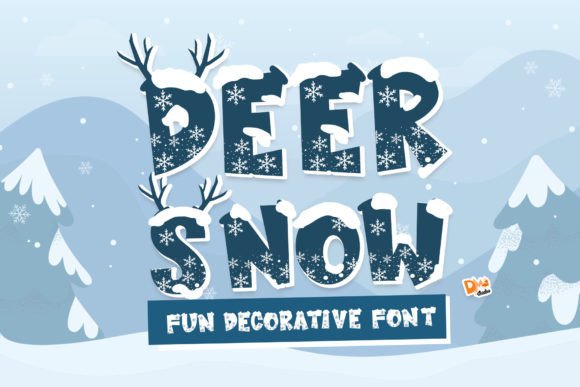
Deer Snow Font: A Cute and Lovely Decorative Font for Wintery and Christmas-Related Projects
Are you looking for a font that captures the essence of winter and Christmas? Look no further than the Deer Snow Font, a cute and lovely decorative font that’s perfect for all your wintery and Christmas-related creative projects. In this article, we’ll take a closer look at the Deer Snow Font, its features, and how you can use it to add a touch of magic to your designs.
What is Deer Snow Font?
Deer Snow Font is a decorative font designed to evoke the feeling of snow and winter. It’s a fun and playful font that’s perfect for creating festive and eye-catching designs. The font features a unique and intricate design, with each letter and symbol carefully crafted to resemble snowflakes and winter elements.
Features of Deer Snow Font
The Deer Snow Font has several features that make it perfect for wintery and Christmas-related projects. Some of its key features include:
- Cute and Lovely Design: The font has a cute and lovely design that’s perfect for creating festive and eye-catching designs.
- Wintery and Christmas-Related Themes: The font is designed specifically for wintery and Christmas-related projects, making it perfect for creating holiday cards, decorations, and more.
- Unique and Intricate Design: Each letter and symbol in the font is carefully crafted to resemble snowflakes and winter elements, giving it a unique and intricate design.
- Fun and Playful: The font has a fun and playful feel to it, making it perfect for creating designs that are meant to be festive and fun.
How to Use Deer Snow Font
The Deer Snow Font is easy to use and can be incorporated into a variety of design projects. Here are some ways you can use the font:
- Holiday Cards and Invitations: Use the Deer Snow Font to create festive holiday cards and invitations that are sure to impress.
- Christmas Decorations: Use the font to create Christmas decorations, such as garlands, signs, and more.
- Wintery Social Media Graphics: Use the font to create wintery social media graphics that are sure to stand out.
- Festive Website Headers: Use the font to create festive website headers that will get your visitors in the holiday spirit.
Benefits of Using Deer Snow Font
There are several benefits to using the Deer Snow Font in your design projects. Some of the benefits include:
- Unique and Festive Designs: The font allows you to create unique and festive designs that are sure to stand out.
- Easy to Use: The font is easy to use and can be incorporated into a variety of design projects.
- High-Quality Design: The font has a high-quality design that’s sure to impress.
- Perfect for Wintery and Christmas-Related Projects: The font is designed specifically for wintery and Christmas-related projects, making it perfect for creating holiday designs.
Tips for Using Deer Snow Font
Here are some tips for using the Deer Snow Font in your design projects:
- Use it Sparingly: Use the font sparingly to avoid overwhelming your design.
- Pair it with Other Fonts: Pair the Deer Snow Font with other fonts to create a unique and interesting design.
- Experiment with Colors: Experiment with different colors to find the perfect combination for your design.
- Have Fun: Most importantly, have fun and be creative with the font!
The Deer Snow Font is a cute and lovely decorative font that’s perfect for all your wintery and Christmas-related creative projects. With its unique and intricate design, fun and playful feel, and high-quality design, it’s sure to add a touch of magic to your designs. Whether you’re creating holiday cards, decorations, or social media graphics, the Deer Snow Font is a great choice. So why not give it a try and see what amazing designs you can create?
- Q: What is the Deer Snow Font?